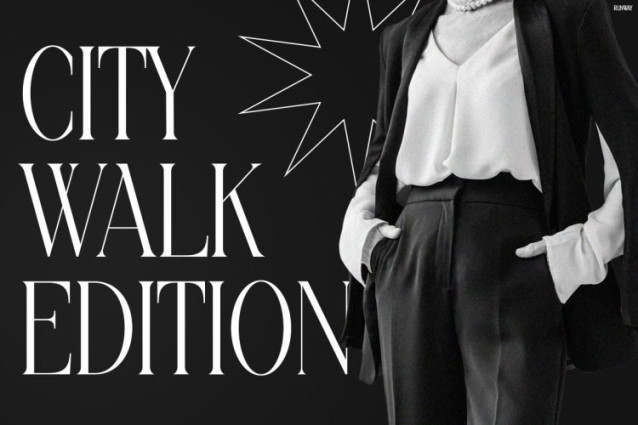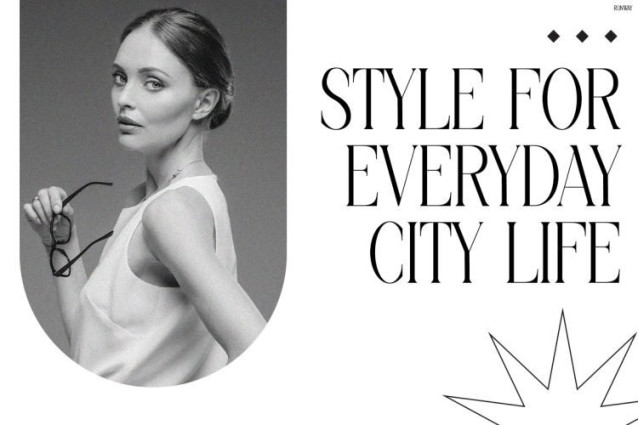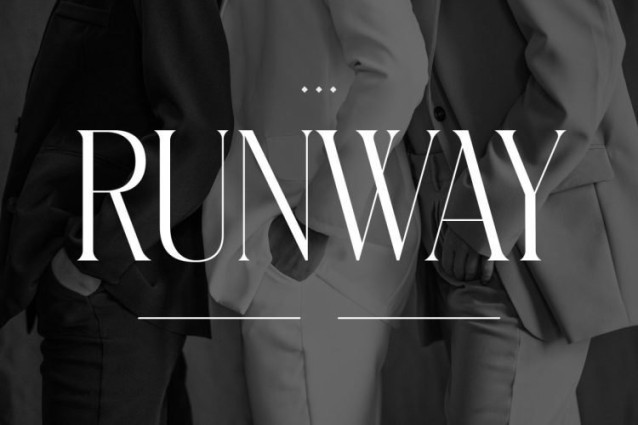
Runway Font
Runway Font is a sophisticated luxury serif font designed to bring timeless elegance and modern fashion energy into every design. With its refined letterforms, sleek proportions, and editorial-inspired aesthetic, this font instantly creates a premium and high-end visual atmosphere. Moreover, the graceful serif details make every headline feel more stylish, artistic, and visually captivating. In addition, the clean typography keeps your text highly readable, so your message remains polished across both digital and print media. Because of its fashion-forward appearance, Instagram Font Runway works perfectly for luxury branding, lifestyle campaigns, fashion promotions, and premium social media content. Furthermore, the elegant structure helps every layout feel more exclusive and professionally curated. At the same time, the modern city-inspired style adds a contemporary edge that feels both sophisticated and memorable.
Why Instagram Font Runway Stands Out
Runway combines classic editorial typography with modern luxury aesthetics. As a result, every word feels refined, confident, and effortlessly stylish. Not only does the font create a premium visual presence, but it also enhances branding with its clean and elegant appearance. Additionally, the slim serif styling gives your designs a more fashionable and upscale character. Meanwhile, the balanced proportions help every layout look polished and professional. Whether you are creating fashion campaigns, luxury packaging, boutique branding, or editorial content, this font helps every project feel more elevated and distinctive. Likewise, the timeless design ensures your visuals remain elegant across different trends and industries.